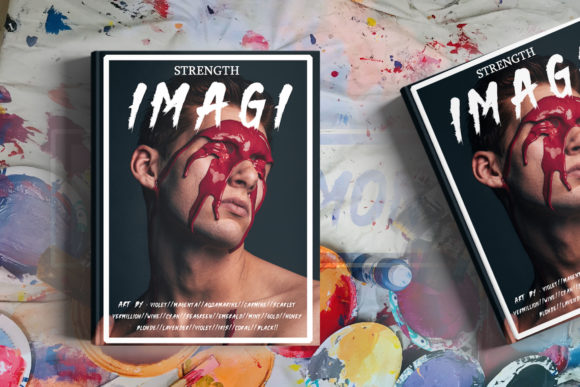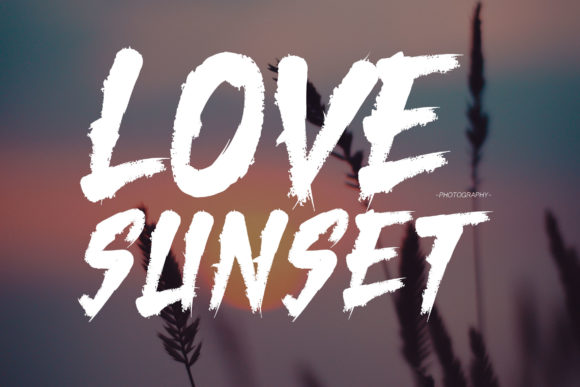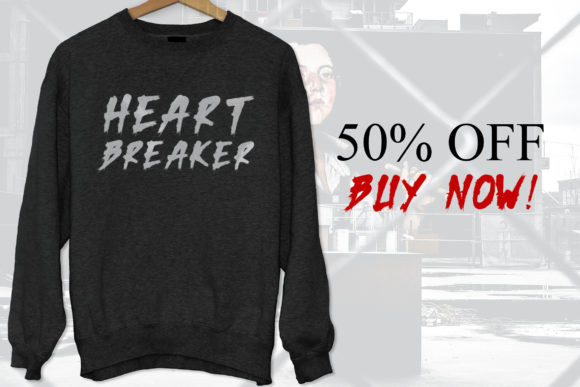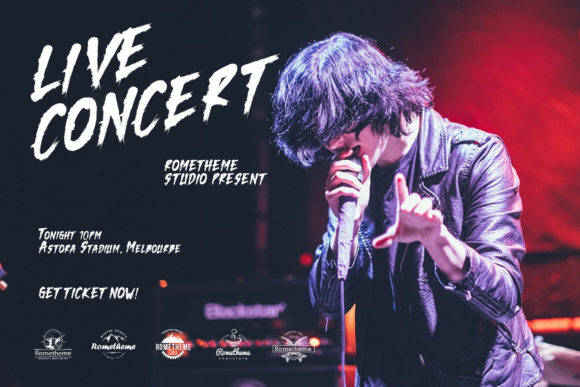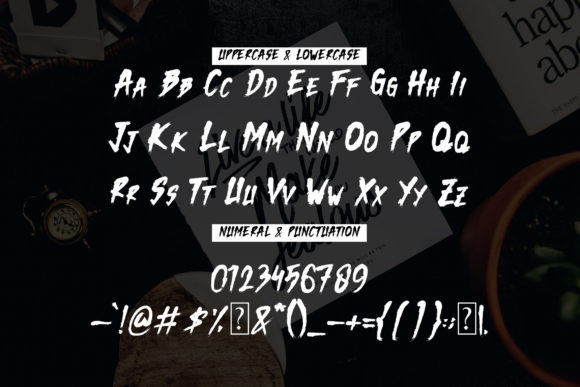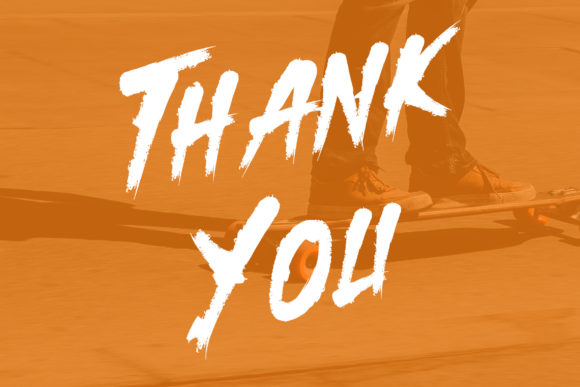
Unleash the Power of Dark Monk Font: Elevate Your Designs with Elegance and Sophistication
In the world of typography, a font can make or break a design. For designers and crafters seeking to add a touch of elegance and sophistication to their projects, look no further than the Dark Monk Font. This modern, hand-drawn display typeface has been making waves in the design community, and for good reason. Its classy look and versatility make it an ideal choice for a wide range of applications, from fashion and apparel to branding, advertising, and more.
The Story Behind Dark Monk Font
Dark Monk Font is a carefully crafted typeface that boasts a unique, hand-drawn aesthetic. Its elegant lines and refined features give it a distinctive look that sets it apart from more traditional fonts. Whether you’re working on a high-end fashion brand, a music album cover, or a stylish magazine spread, Dark Monk Font is sure to make a statement.
What Makes Dark Monk Font So Special?
So, what sets Dark Monk Font apart from other fonts on the market? Here are just a few reasons why designers and crafters are falling in love with this stunning typeface:
- Elegant and Classy Look: Dark Monk Font exudes sophistication and refinement, making it perfect for projects that require a touch of luxury.
- Versatility: From fashion and apparel to branding, advertising, and more, Dark Monk Font can be used in a wide range of applications.
- Hand-Drawn Aesthetic: The font’s unique, hand-drawn look gives it a distinctive character that sets it apart from more traditional fonts.
- Attention-Grabbing: Dark Monk Font is sure to capture everyone’s attention, making it perfect for projects that need to stand out from the crowd.
Dark Monk Font is an incredibly versatile typeface that can be used in a wide range of projects, including:
- Fashion and Apparel: Add a touch of elegance to your fashion brand with Dark Monk Font.
- Signatures and Logos: Create a lasting impression with Dark Monk Font’s sophisticated look.
- Album Covers: Give your music project a stylish makeover with Dark Monk Font.
- Branding and Advertising: Elevate your brand with Dark Monk Font’s refined features.
- Magazines and Social Media Posts: Add a touch of class to your editorial content with Dark Monk Font.
Tips for Using Dark Monk Font
To get the most out of Dark Monk Font, here are a few tips to keep in mind:
- Use it as a Headline Font: Dark Monk Font is perfect for headlines and titles, where its elegant look can really shine.
- Experiment with Different Colors: Try pairing Dark Monk Font with different colors to create a unique look that suits your project.
- Don’t be Afraid to Get Creative: Dark Monk Font is a versatile typeface that can be used in a wide range of applications, so don’t be afraid to think outside the box.
In conclusion, Dark Monk Font is a powerful tool for designers and crafters looking to add a touch of elegance and sophistication to their projects. Its unique, hand-drawn aesthetic and versatile nature make it an ideal choice for a wide range of applications. Whether you’re working on a high-end fashion brand or a stylish magazine spread, Dark Monk Font is sure to make a statement. So why wait? Add Dark Monk Font to your creative arsenal today and start elevating your designs to new heights!